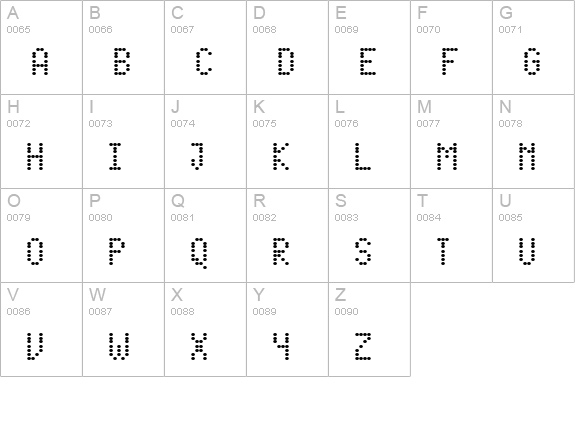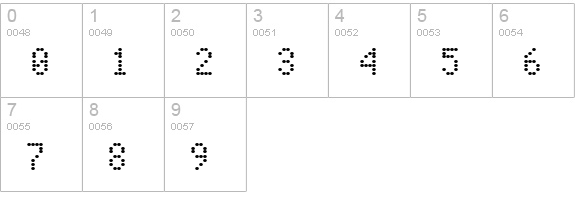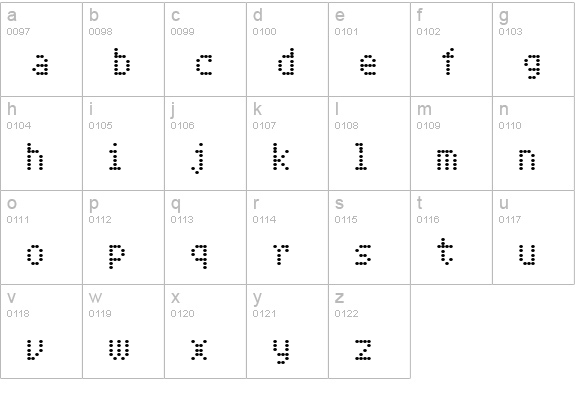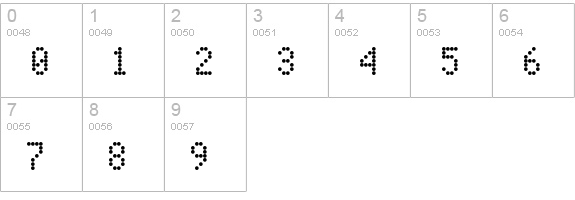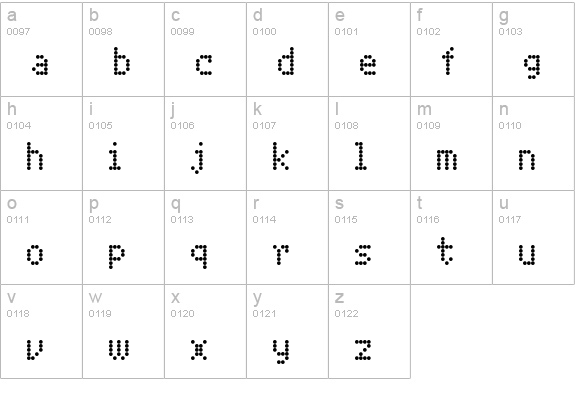
PFDigidot Four Font Details
PFDigidot Four font is a versatile and modern typeface that combines clean lines with a digital-inspired aesthetic. With its unique design elements and futuristic vibe, this font is perfect for projects that require a contemporary and tech-savvy look. The geometric shapes and dotted patterns give PFDigidot Four a distinctive appearance that will make your text stand out. Best of all, PFDigidot Four font is available for free download at FontsMarket.com. Whether you're working on a website, poster, or branding project, this font will add a touch of sophistication and style to your designs. Don't miss out on the opportunity to enhance your work with this eye-catching typeface – download PFDigidot Four today and take your projects to the next level!